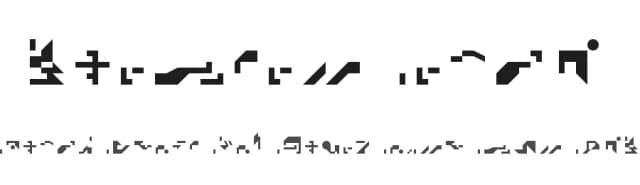
About Zuptype SIM Font
Zuptype SIM is a dingbat font designed by Zupton. It includes 165 glyphs, a regular weight, TTF (TrueType) format, and 208 languages. Zuptype SIM is free to download; check the license details on this page before commercial use. Dingbat fonts like Zuptype SIM work best for icons, ornaments, bullet points, and decorative accents.
Zuptype SIM Font is a versatile dingbats font that works for both headings and body text. Pair it with a contrasting sans-serif or serif font to add visual interest and a clear distinction between titles and body copy.
Zuptype SIM Font
by Zupton
Zuptype SIM Font is a dingbats typeface by Zupton, ideal for logos, invitations, branding, and creative projects.